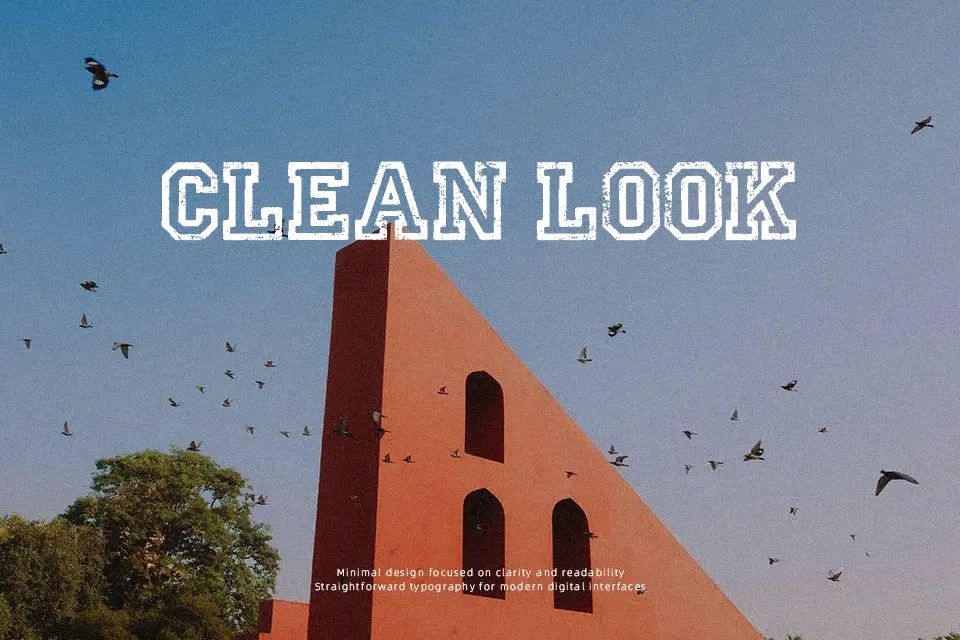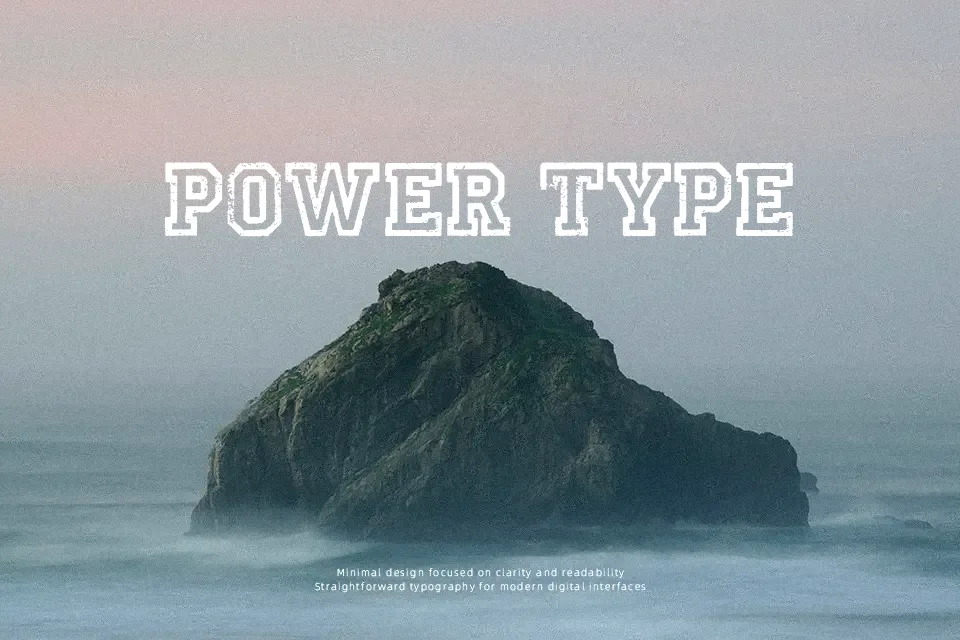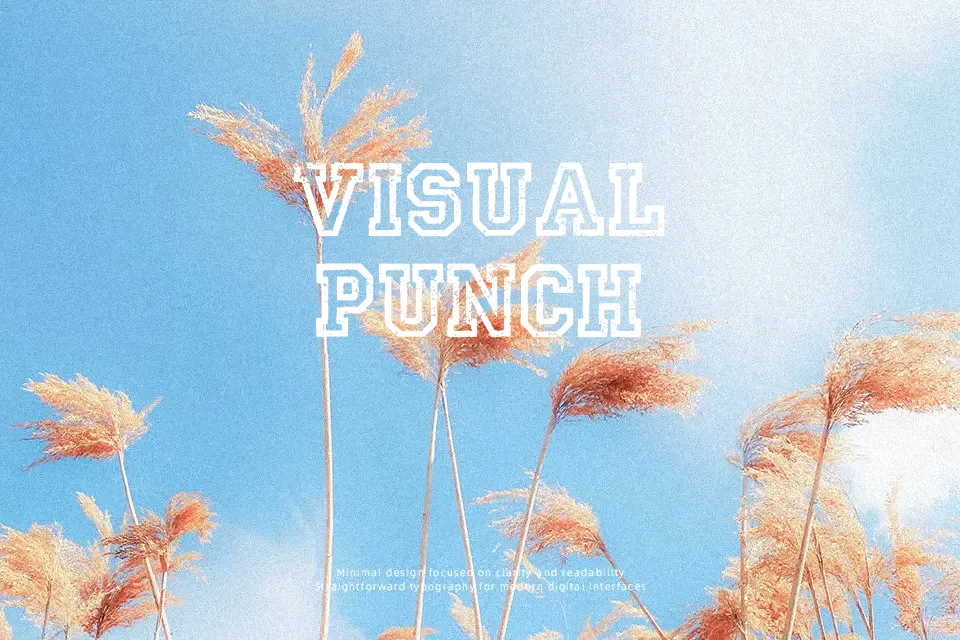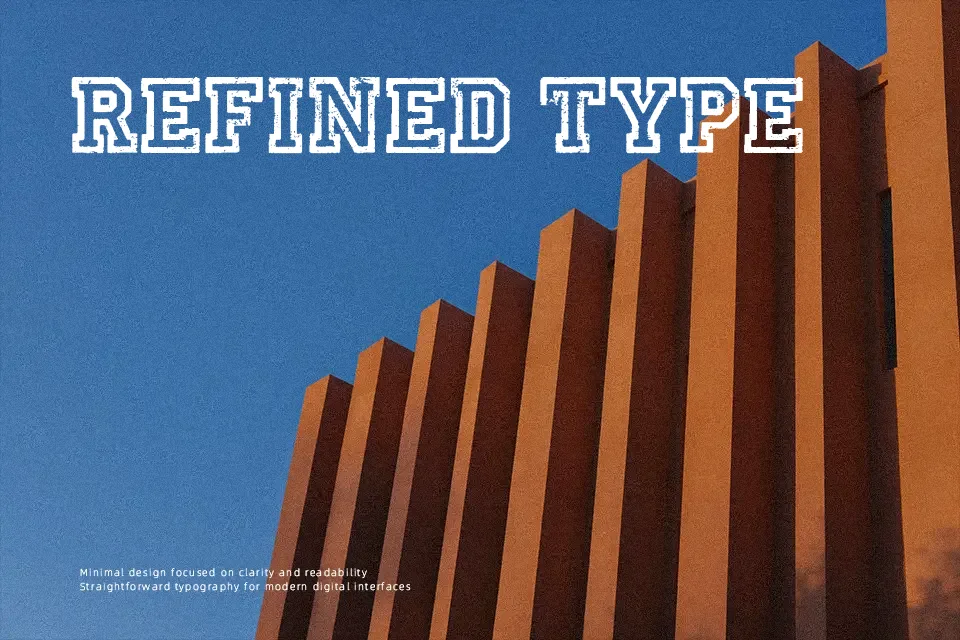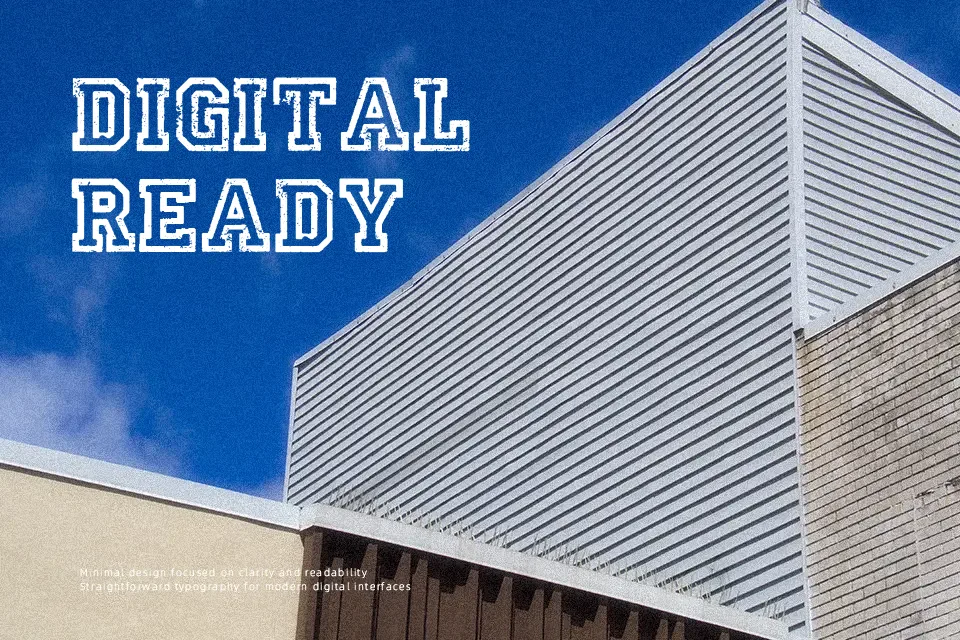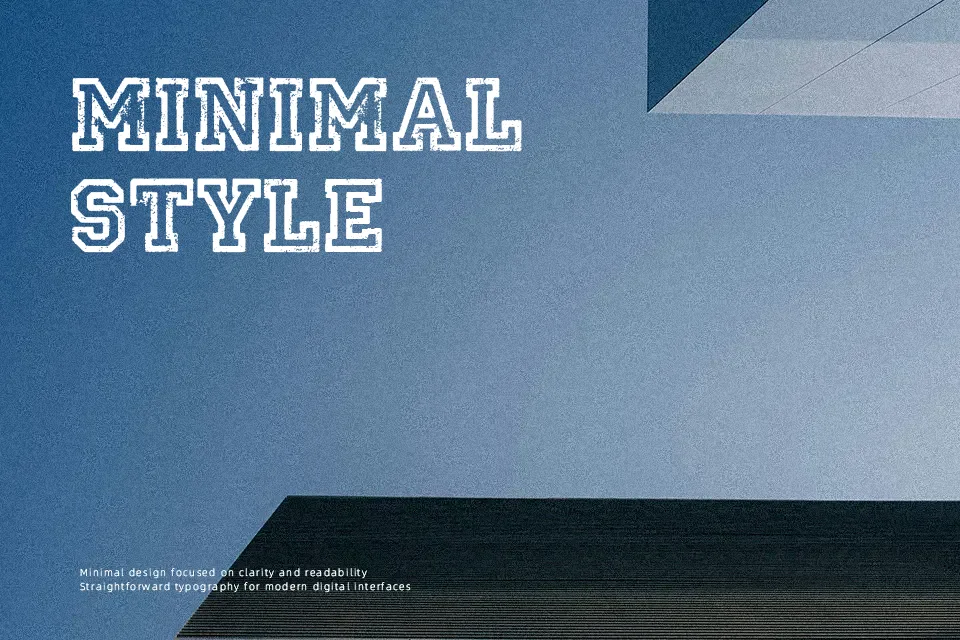
Universidad Font
Universidad Font establishes an authoritative athletic presence through heavy, squared slab serifs and prominent double-stroke contouring across its uppercase forms. The letterforms feature thick vertical stems, uniform stroke contrast, and structured octagonal bevels that deliver high impact across sports branding and event graphics. While the tight internal spacing and heavy outer boundaries maintain clarity in punchy headline settings, the dense outlines quickly clutter in smaller text sizes. The design performs effectively when showcased in isolated title graphics, though it remains unsuitable for continuous body reading.
Best For: athletic apparel graphics, sports team branding, collegiate poster headlines, stadium signage
Not Ideal For: continuous body text, mobile interface labels, legal documents, dense editorial paragraphs
Perfect for headline, logo, and packaging, with a bold and decorative style.